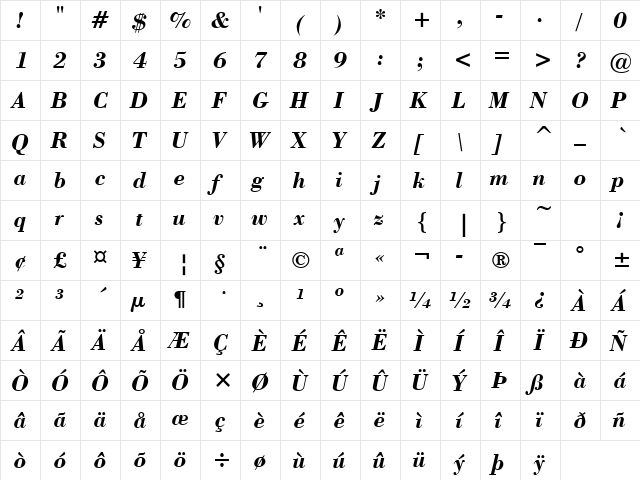
Marque Bold Italic
Design Context for Marque Typeface
Marque takes a measured approach to typography — its balanced proportions and neutral character make it a reliable workhorse for both digital and print work. Its italic angle brings a sense of urgency and motion to the letterforms. The heavy weight commands attention and anchors typographic hierarchies.
Pro Tip: Try Marque for annotation and caption copy alongside an upright companion — the contrast in angle creates a dynamic but ordered typographic system.